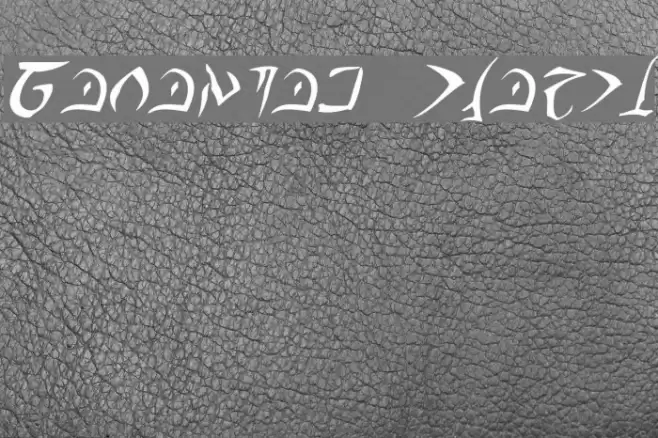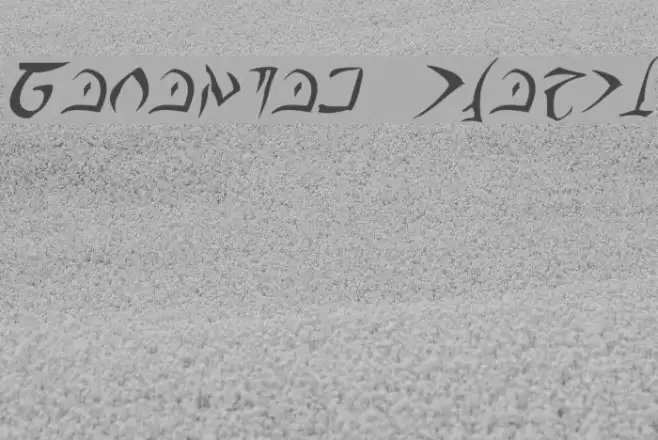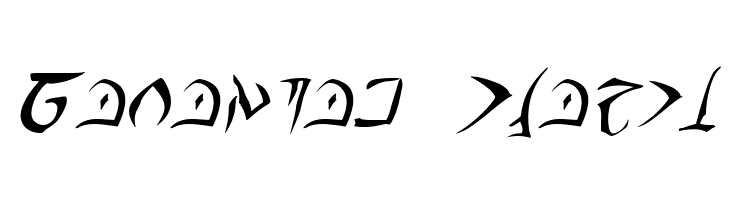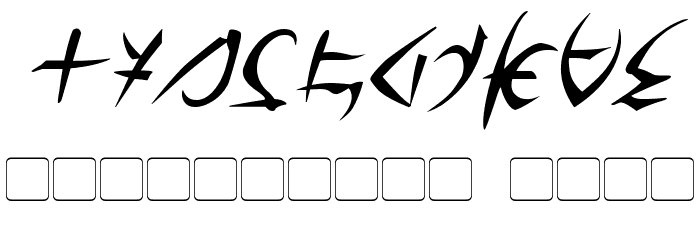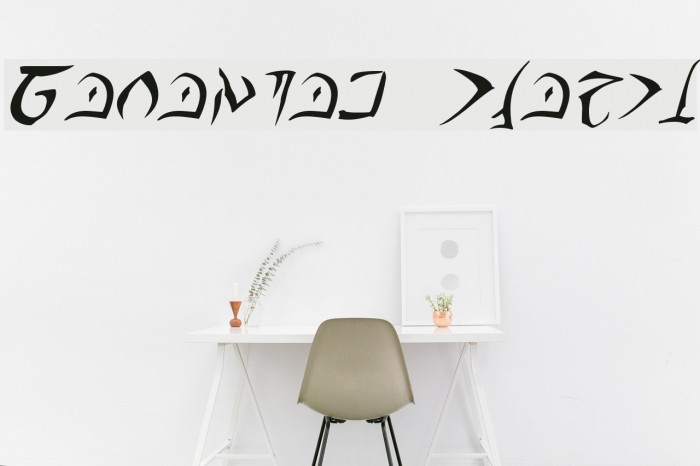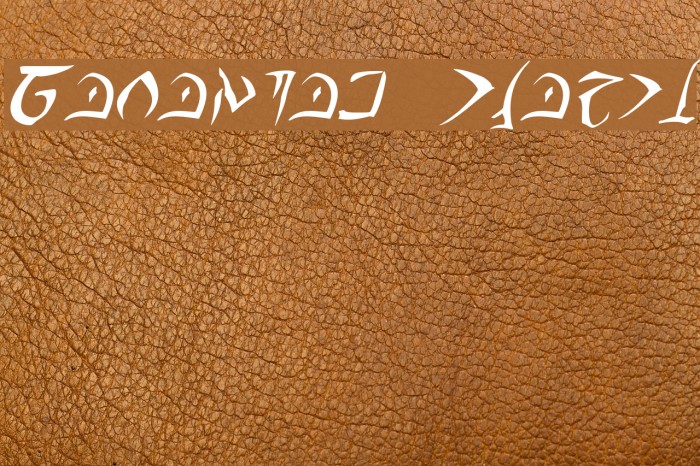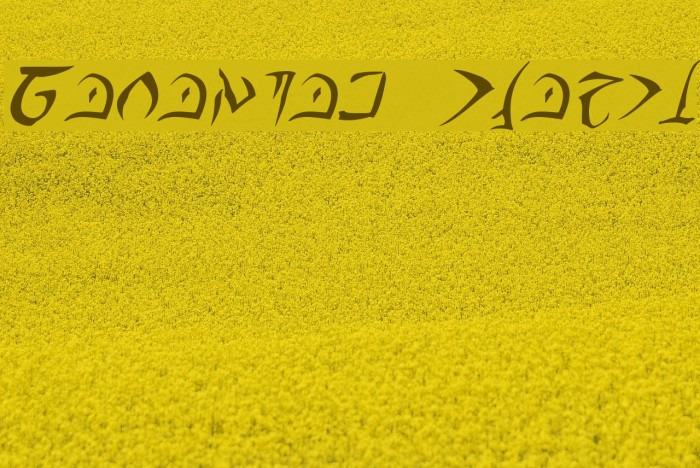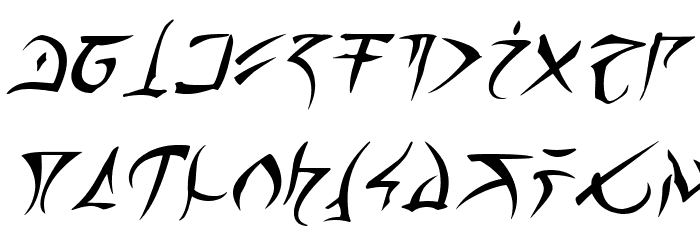
Barazhad Italic Font
Barazhad Italic Description
This font features a unique, angular design with sharp, pointed edges and a flowing, italicized style. The characters are highly stylized, resembling ancient or mystical script, which gives it a distinct and exotic appearance. The strokes vary in thickness, adding a dynamic and energetic feel to the text. The overall design is decorative and artistic, making it stand out for creative projects. The characters are closely spaced, enhancing the compact and cohesive look of the text.
A decorative, angular, and italicized font with a mystical, ancient script style from Uncategorized fonts.
- Proposed Projects: Ideal for fantasy-themed projects, video game design, book covers, movie posters, and any creative work requiring a mystical or ancient aesthetic.
- Character Spacing: Tight